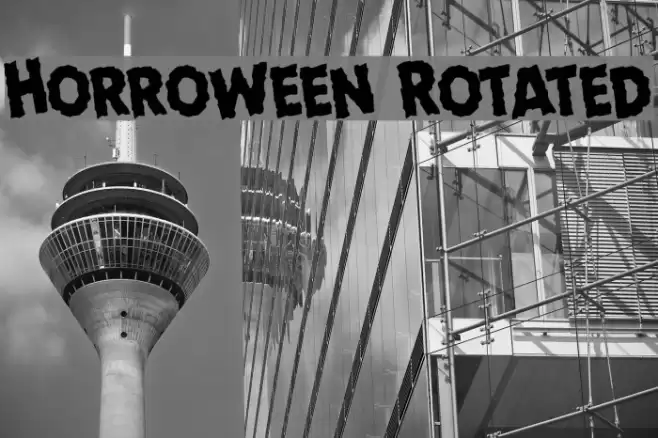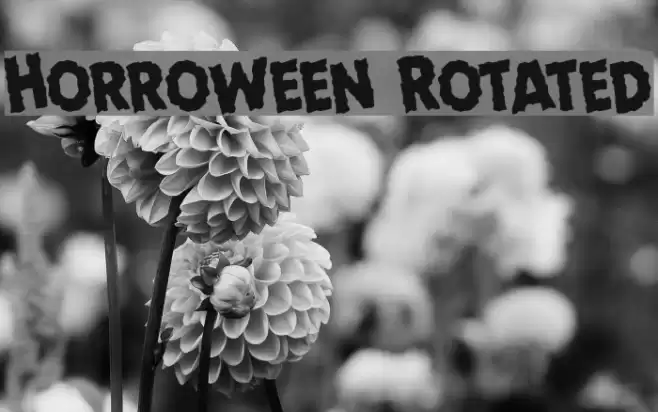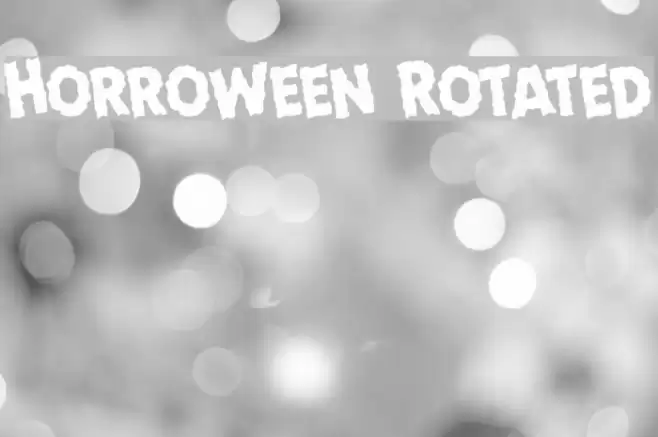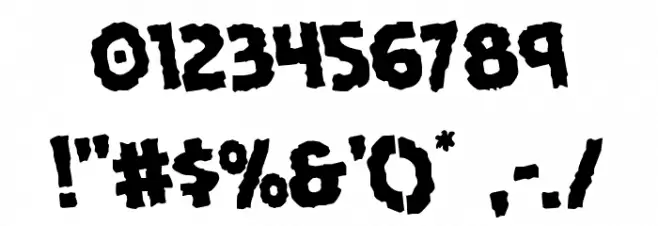
Horroween Rotated Font
Horroween Rotated Description
This font features a bold and jagged design, reminiscent of classic horror themes. Each character appears as if it has been carved or torn, giving it a rough, textured appearance. The uppercase and lowercase letters maintain a consistent style, with irregular edges that enhance the eerie aesthetic. Numbers and special characters follow the same design principles, ensuring a cohesive look across all glyphs. The font's unique style makes it ideal for creating a spooky or unsettling atmosphere, perfect for Halloween-themed projects or any design that requires a touch of the macabre.
A bold, jagged font with a horror-inspired, textured design from Uncategorized fonts.
- Proposed Projects: Ideal for Halloween invitations, horror movie posters, themed event flyers, and spooky merchandise designs.